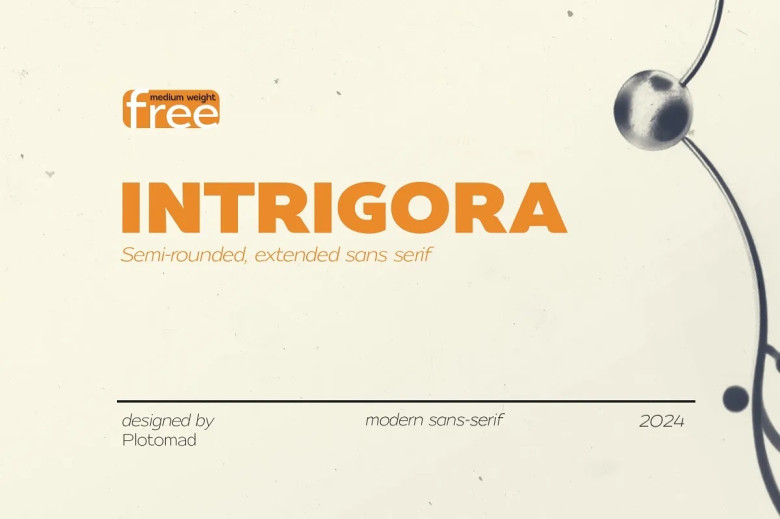
Intrigora Font
Intrigora is a modern font with its smooth, contemporary style and cozy rounded font bringing warmth. Perfect for branding purposes and headlines. With its vast font selection, designers can craft designs that are captivating and inspiring. This font can be used both digitally and printed, while each letter has been meticulously designed to be clear while also adding an element of intrigue.
Intrigora Sans Serif Font Family